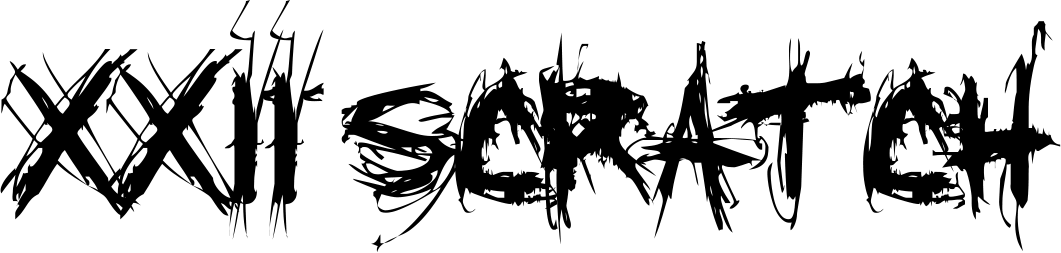
XXII Scratch Font
Need a font to raise adrenaline and make hearts pound? So if it’s the case, XXII Scratch would help you a lot. This one shares a brutal and gruesome mood so that you can utilize it for horror movies, books, Halloween flyers, or other related projects. Notice that it doesn’t entail small letters, give it a try, and for more emo fonts, discover RB.